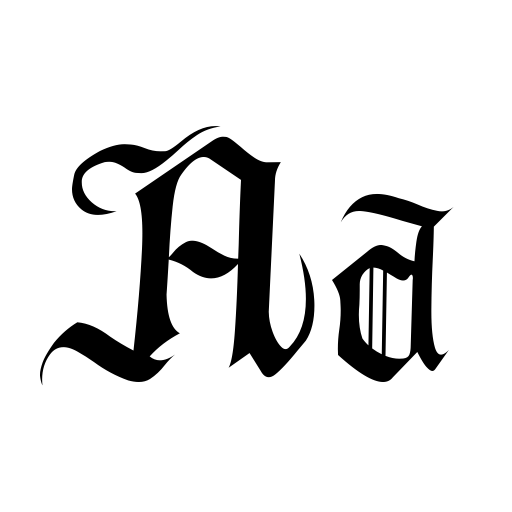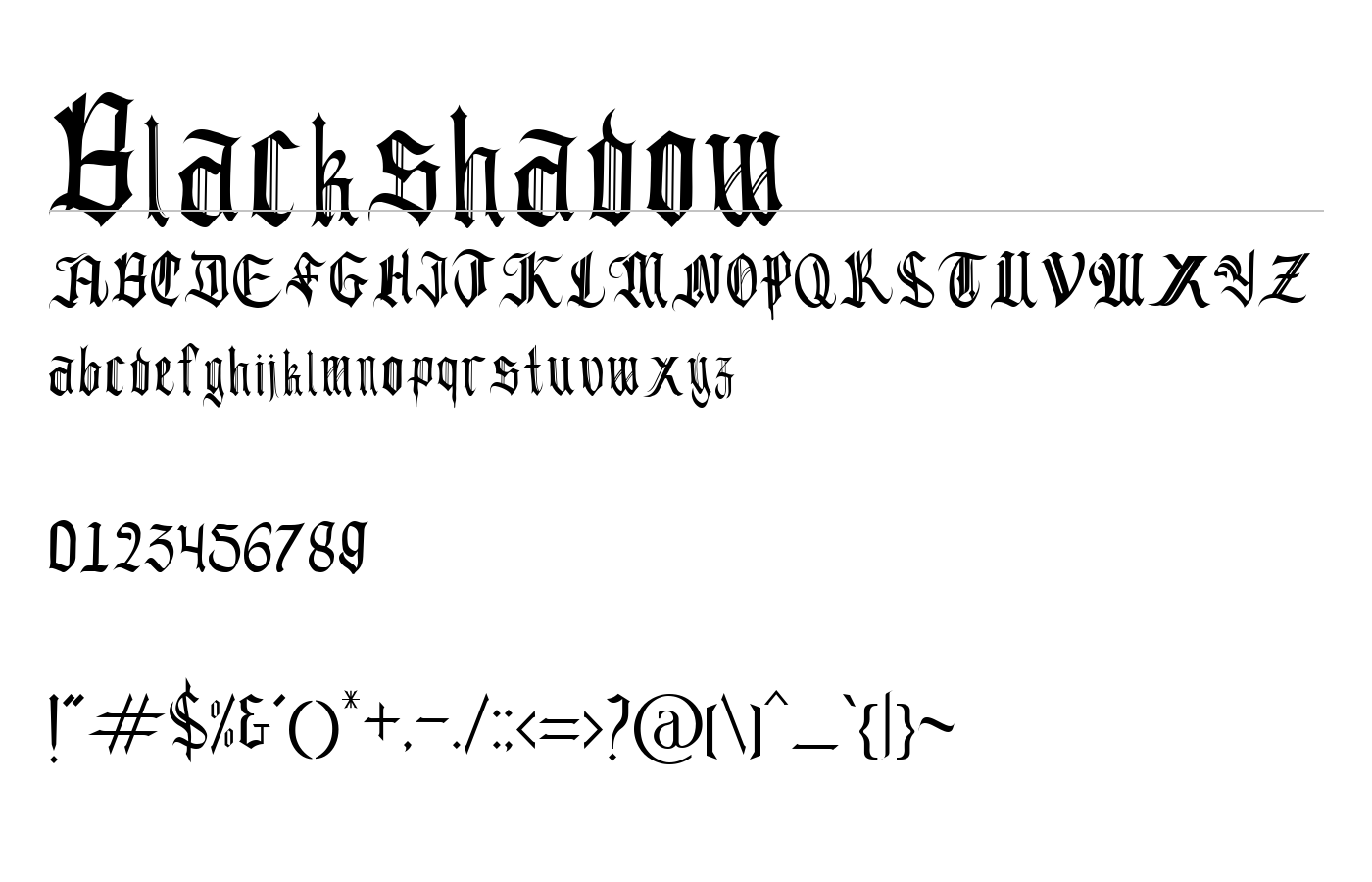
Blackshadow is a dramatic blackletter serif font with strong vertical strokes and intricate, sharp details that evoke a historic Gothic style. Its condensed, high-contrast letterforms and elaborate serif shapes give it a bold, vintage character perfect for striking headlines, logos, and designs that aim to convey tradition, mystery, or a darkly elegant mood. This font works best in display settings where its detailed, ornamental look can shine.
Blackshadow Font
About Blackshadow Font